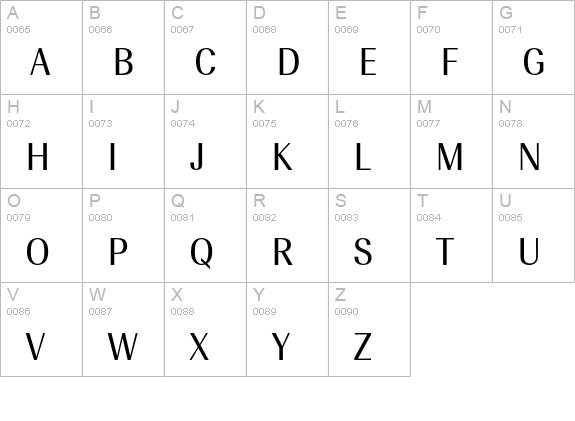
RadiantEFText-Book is a comfortable, highly readable variant in the RadiantEFText typeface family \xE2\x80\x94 well suited to long-form body text, articles, and editorial content.
RadiantEFText-Book font is a beautifully crafted typeface that exudes elegance and sophistication. Its smooth curves and clean lines make it a perfect choice for any design project that requires a touch of class. This font is designed to be highly legible, ensuring that your message will be easily understood by readers. What sets RadiantEFText-Book font apart is not only its stunning aesthetics, but also the fact that it is freely available to download. Yes, you heard that right – this incredible font can be yours without any cost. Thanks to the generous folks at FontsMarket.com, you can effortlessly enhance your designs with this exceptional typeface. Whether you're designing a logo, creating a poster, or crafting a website, RadiantEFText-Book font will undoubtedly elevate your work to the next level. Its timeless appeal and versatility make it suitable for a wide range of projects, from corporate branding to personal invitations. With RadiantEFText-Book font, you can unleash your creativity without any limitations. Its extensive character set ensures that you'll have all the tools you need to bring your vision to life. Packed with uppercase and lowercase letters, numerals, punctuation marks, and special characters, this font offers endless possibilities for expressing your unique style. So why wait? Take advantage of this incredible offer and download RadiantEFText-Book font today from FontsMarket.com. Join the countless designers who have already discovered the beauty and flexibility of this font. With RadiantEFText-Book font in your arsenal, the possibilities are limitless.